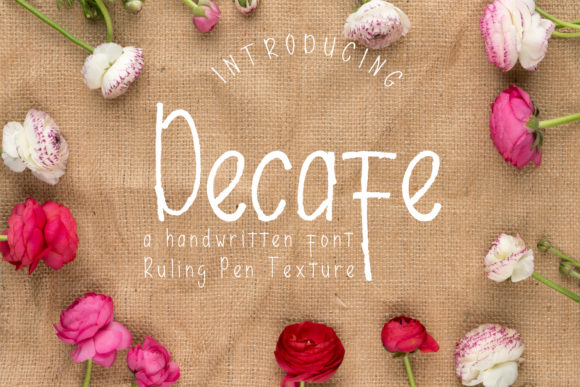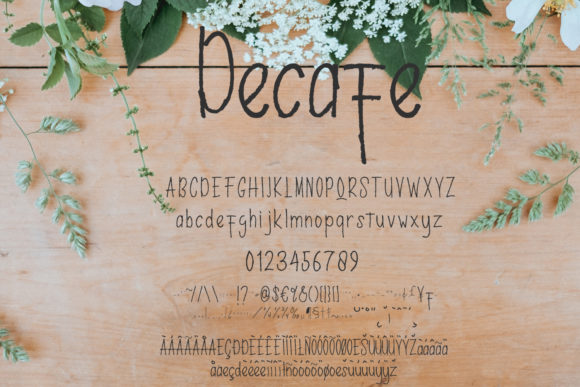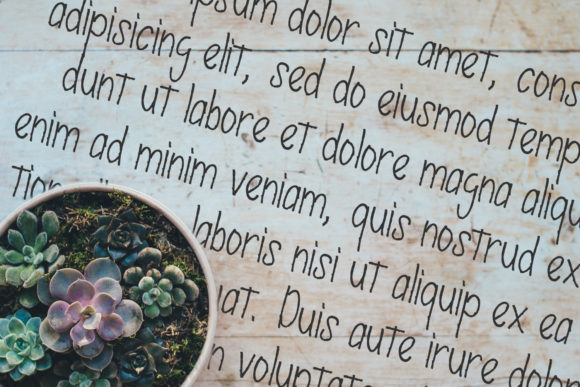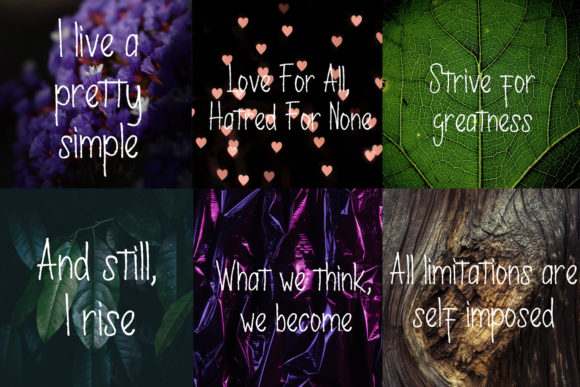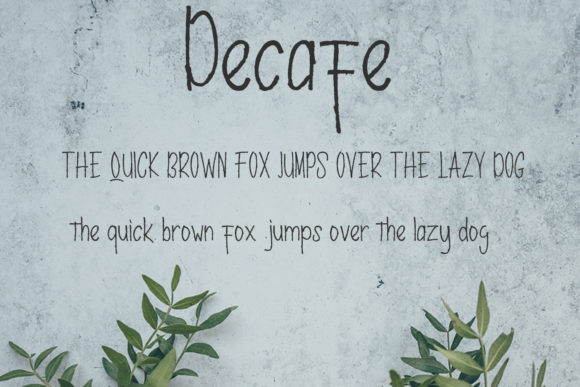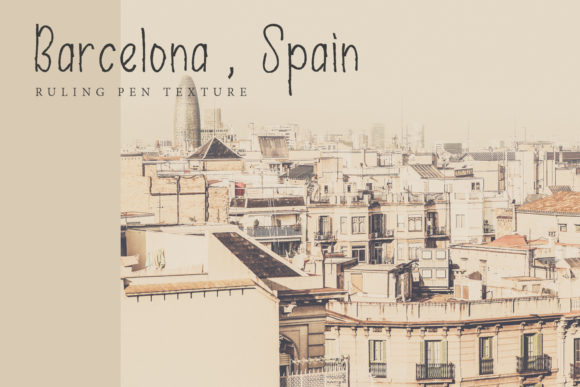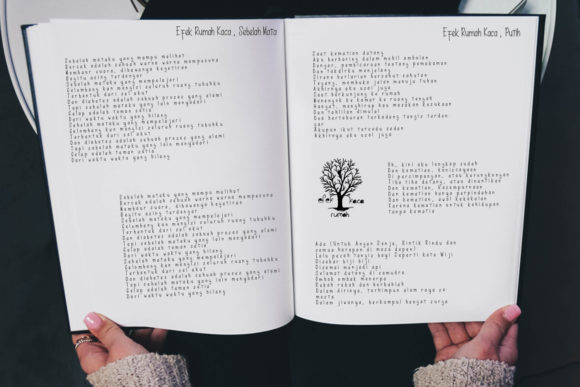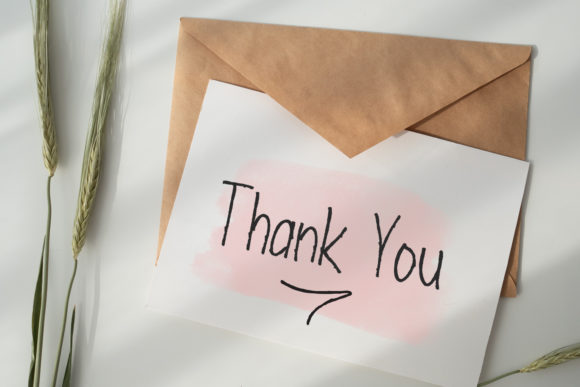
HomeScript FontsDecafe Font Script Fonts Decafe Font FacebookXPinterestWhatsApp Decafe Font Poster 2 Decafe Font Poster 3 Decafe Font Poster 4 Decafe Font Poster 5 Decafe Font Poster 6 Decafe Font Poster 7 Decafe Font Poster 8 About Decafe Font Decafe is a simple, yet elegant script with a modern feel. Get inspired by its contemporary charm. DOWNLOAD ON CREATIVE FABRICAThis font is sold and delivered by Creative Fabrica. Font Canyon may earn a commission if you buy through this link. People also explored Sweetie Autumn Beautiful Calligraphy Font Summeric Font Alpha Anggela Font Dystopian Society Font Hardtrack Font Nudddos Font Larks Tongues Sarah Jane Delight Script Font 352 0 TagsDecafe Font Previous articleMichalina FontNext articleAromi Font LEAVE A REPLY Cancel reply Comment: Please enter your comment! Name:* Please enter your name here Email:* You have entered an incorrect email address! Please enter your email address here Website: Save my name, email, and website in this browser for the next time I comment. Personal Use Free Laneway Personal Use Free Read more about this font Carnivals Personal Use Free Read more about this font Nouradilla Script Free Version Personal Use Free Read more about this font Adrenaline Personal Use Free Read more about this font BLOG Best Fonts for T-Shirt Design – Top 2025 Picks In 2025, t-shirt design has become more than just fashion—it's a form of self-expression. Whether you're... Transform Your Website: Elevate Your Typography with 7 Best Web Font Generators How to Install and Use Fonts on Windows, macOS, and Web Projects Elegant Wedding Invitation Fonts – Handwritten & Script Fonts